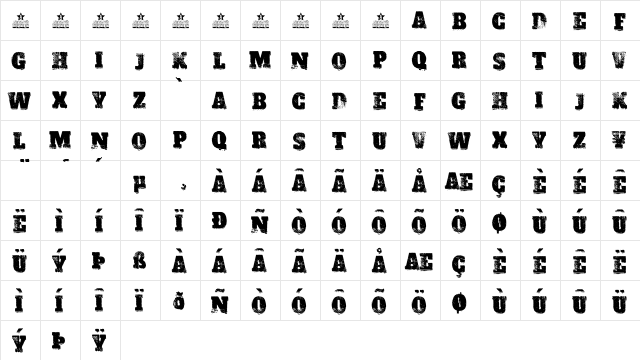
ACID LABEL II Regular
| Foundry | Billy Argel |
| Designer | Billy Argel |
Design Context for ACID LABEL II Typeface
ACID LABEL II is a composed and adaptable typeface that performs quietly and consistently across a wide range of design contexts.